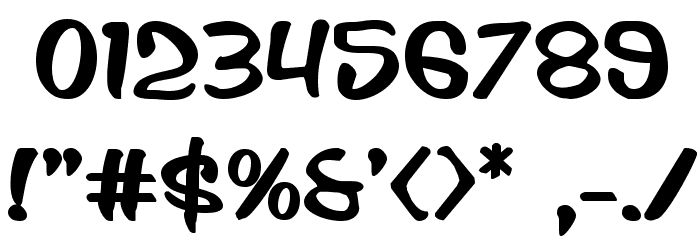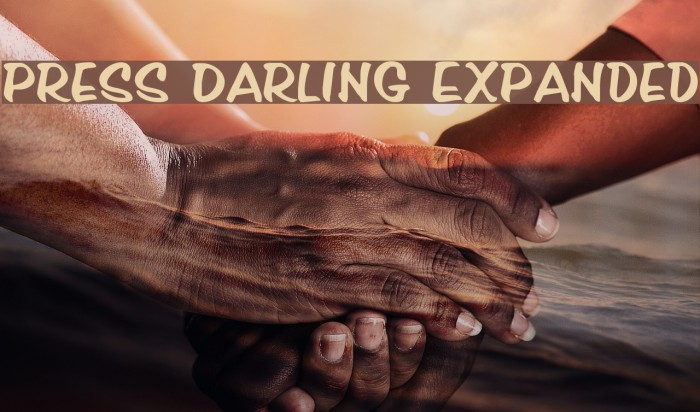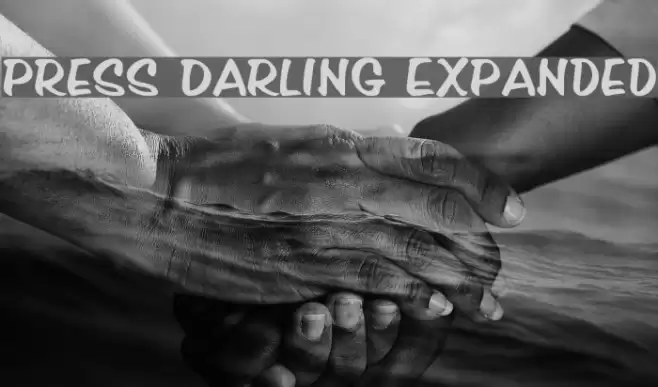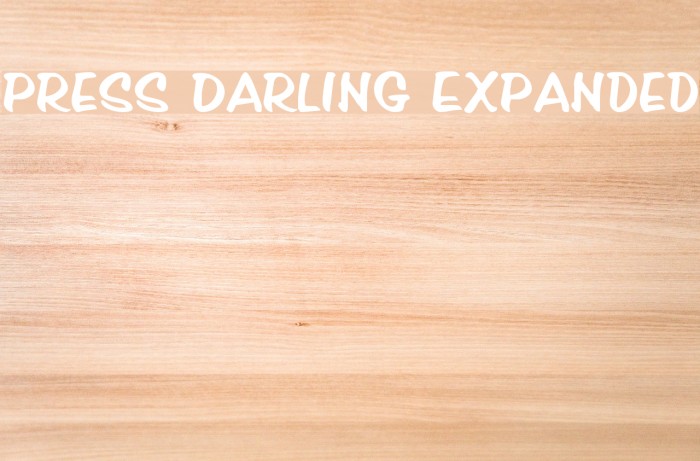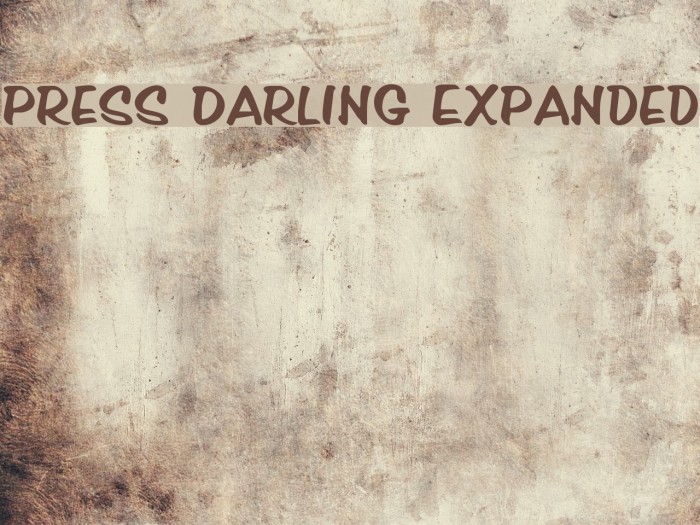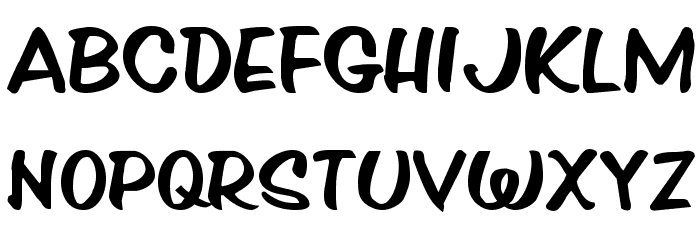
Press Darling Expanded Font
Press Darling Expanded Description
This font features a bold and playful style with a handwritten appearance. The characters are rounded and slightly slanted, giving a casual and friendly vibe. The strokes are thick and consistent, providing a strong visual impact. The uppercase and lowercase letters maintain a cohesive look, while the numerals and special characters are designed to match the overall aesthetic. This font is ideal for projects that require a fun and approachable feel, such as children's books, posters, or branding for creative businesses.
| Overall Style | Playful |
| Proposed Projects | Ideal for children's books, playful posters, and creative branding. |